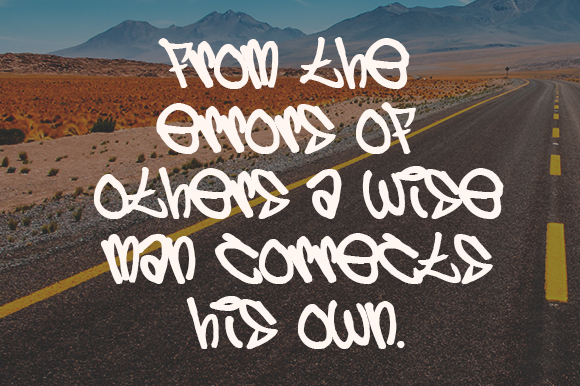
5cent Free Graffiti Font
5cent Free Graffiti Font is a free, unique, and cool font. This font is FREE to Download and suitable for designs such as t-shirts, sportswear, posters, logos, advertisements, clothing, and more.
5cent Free Graffiti Font is a free, unique, and cool font. This font is FREE to Download and suitable for designs such as t-shirts, sportswear, posters, logos, advertisements, clothing, and more. Whatever the topic, this font will be a great asset to your font collection, as it has the potential to enhance any creation.